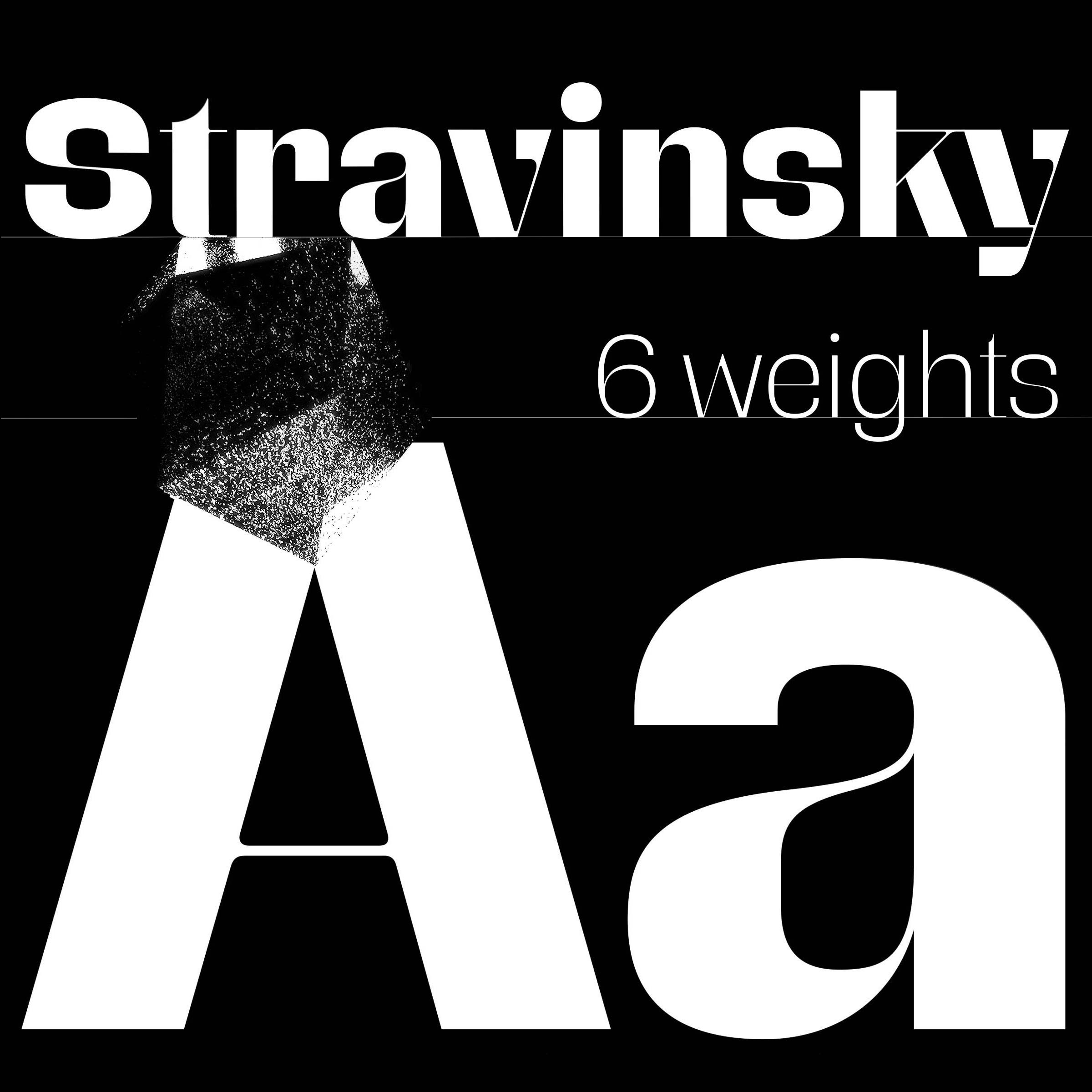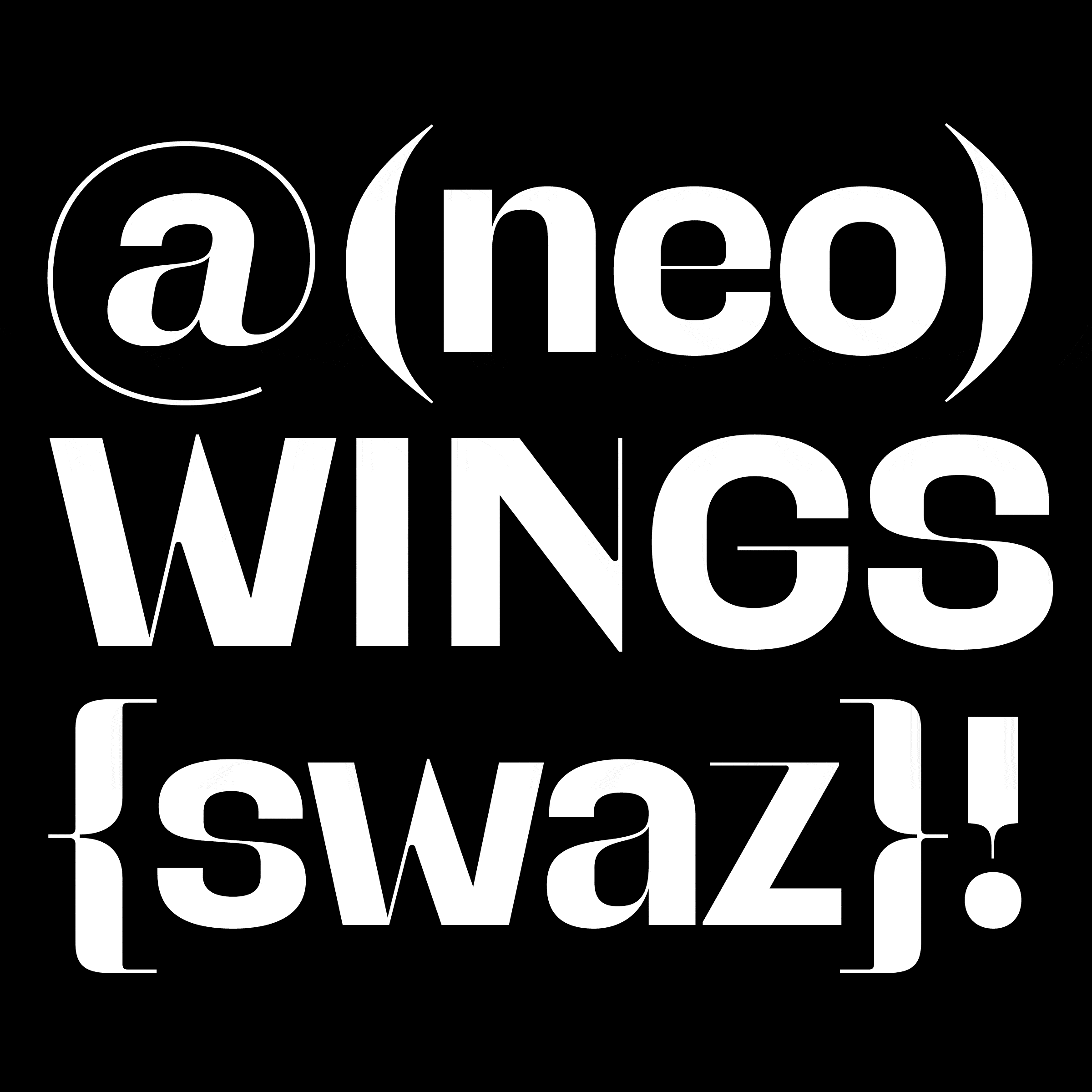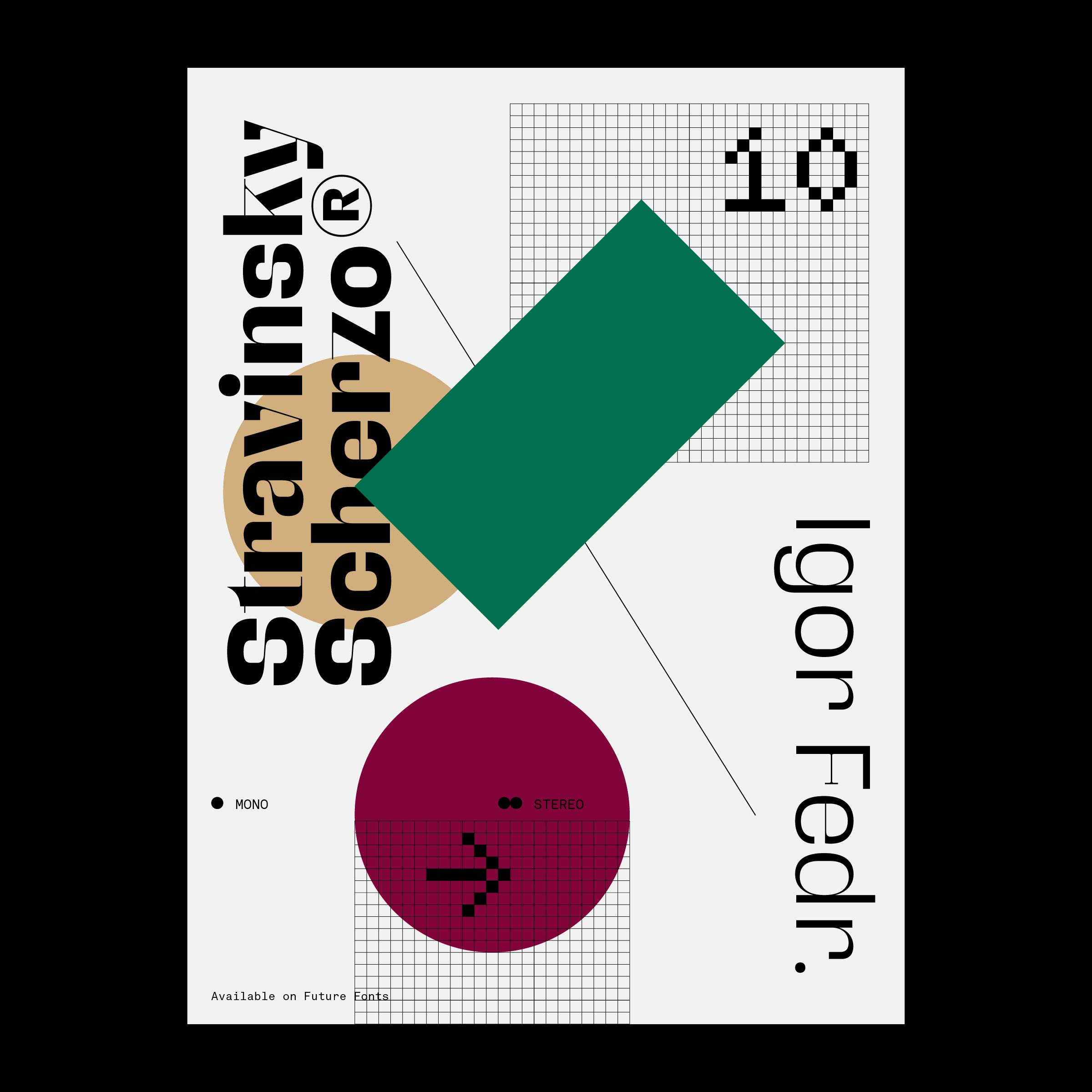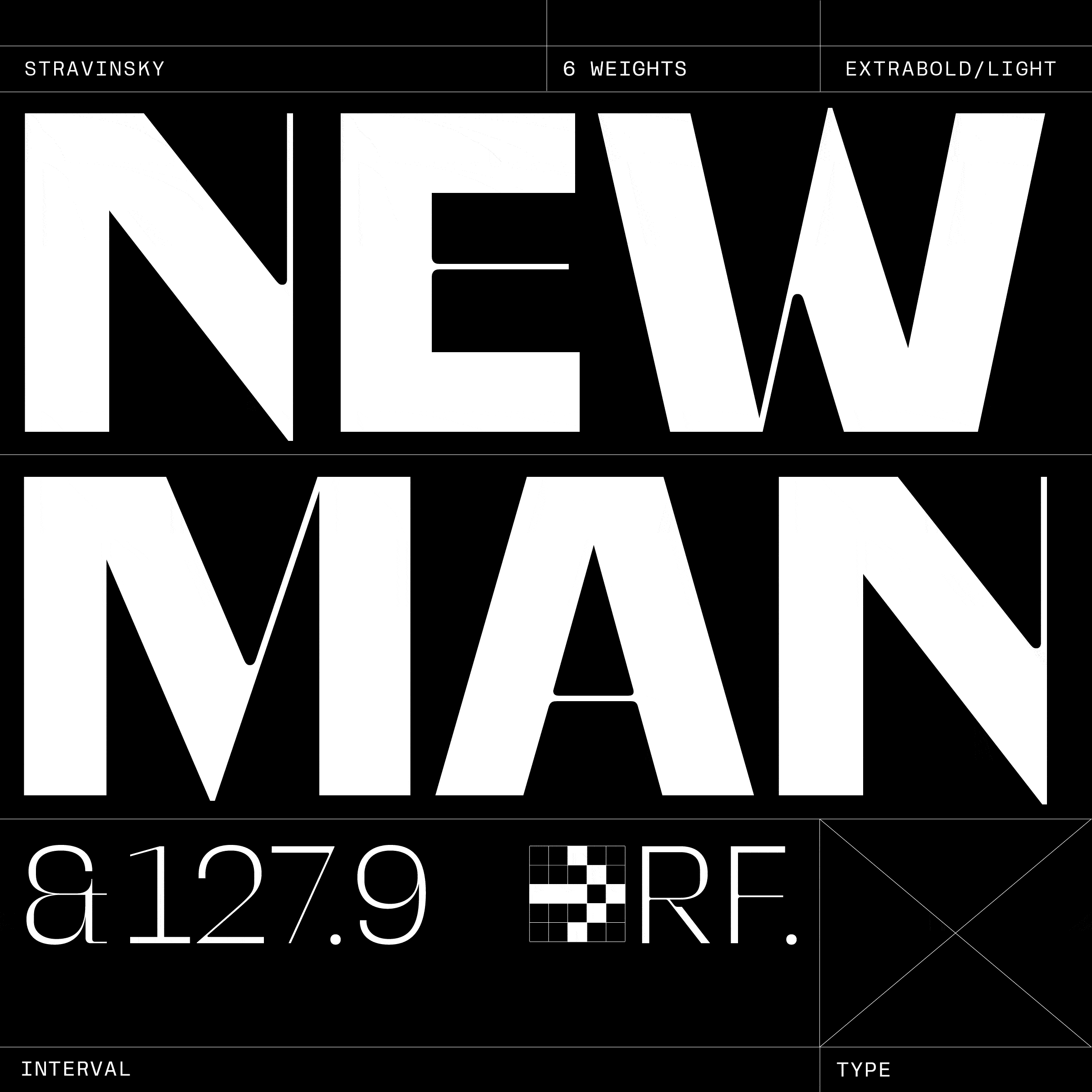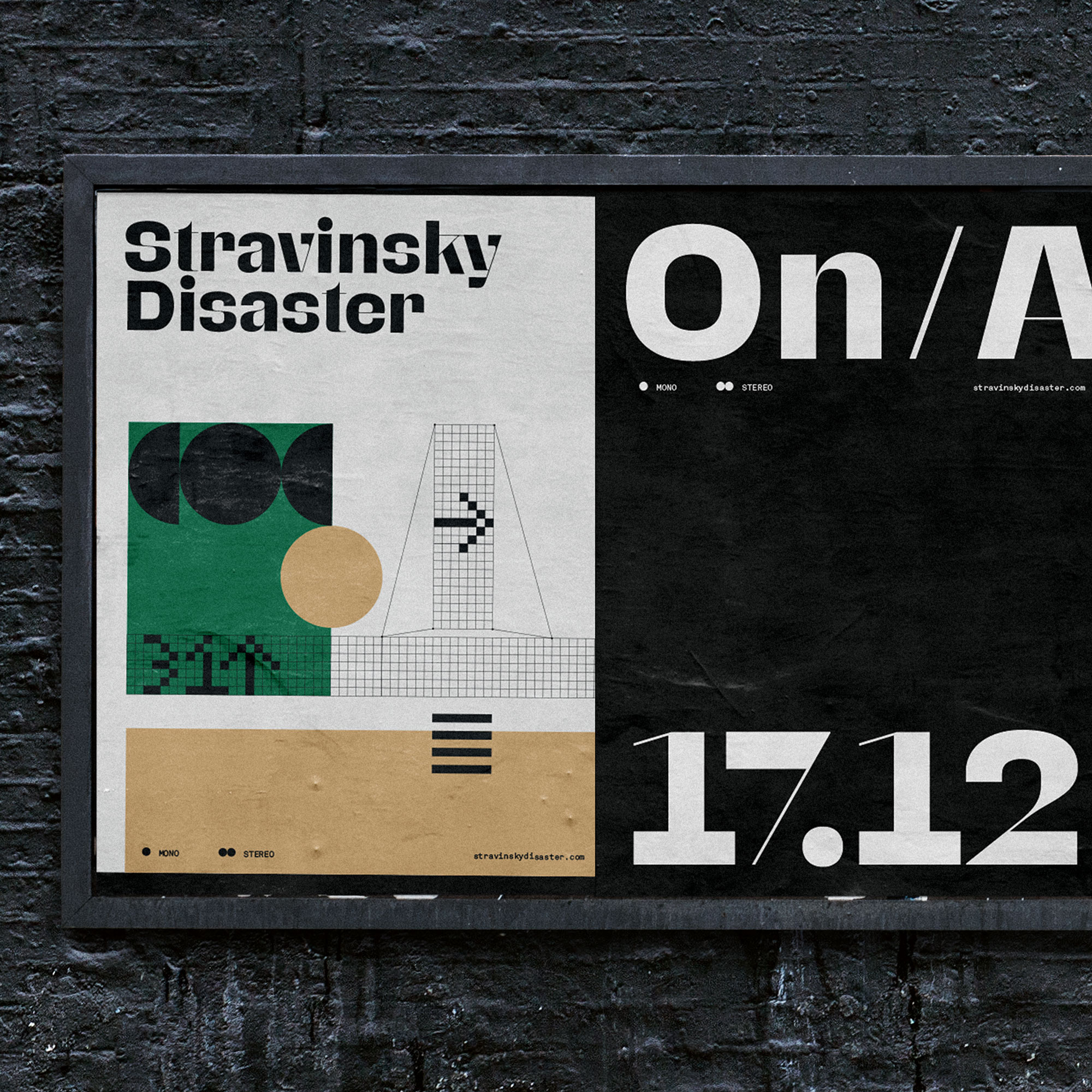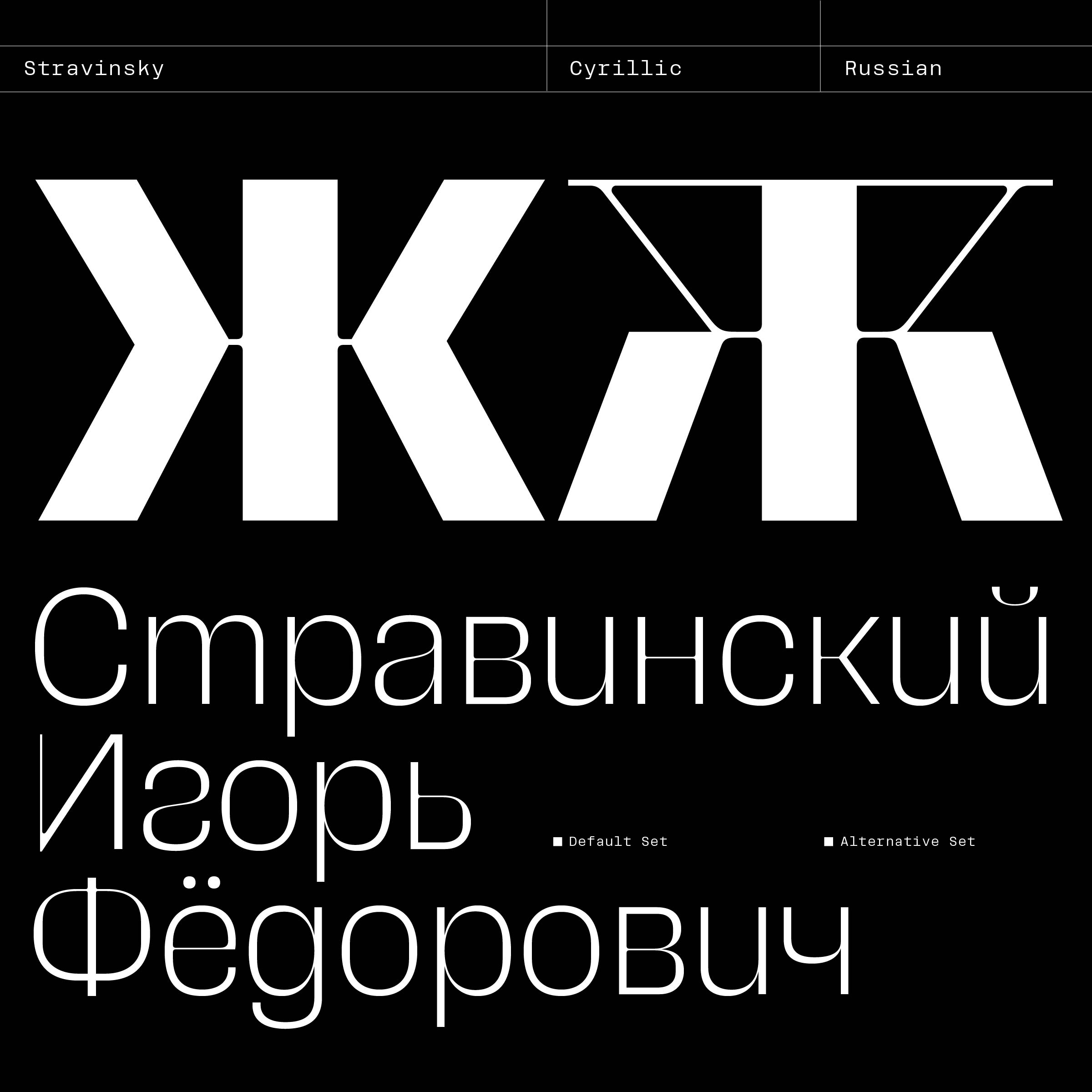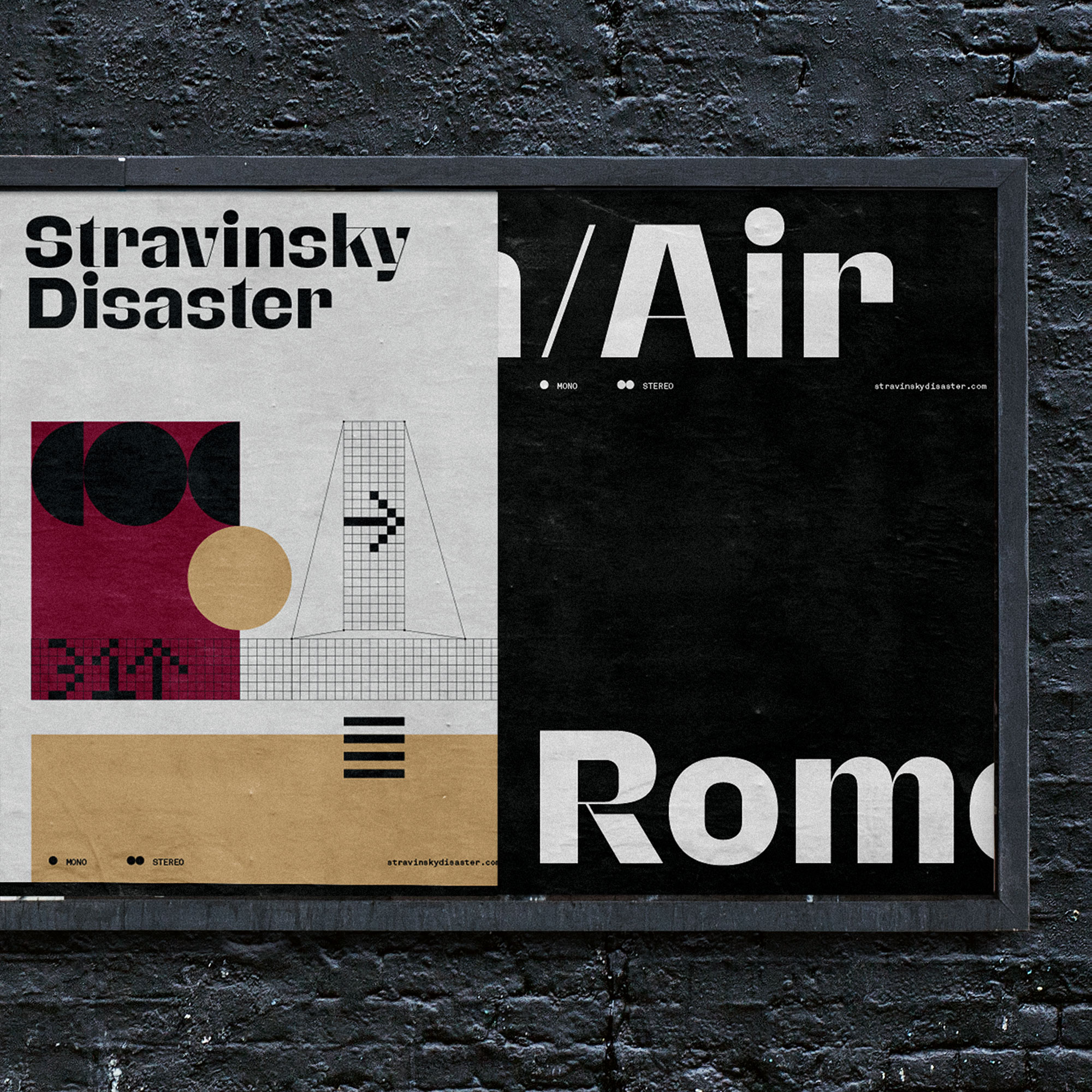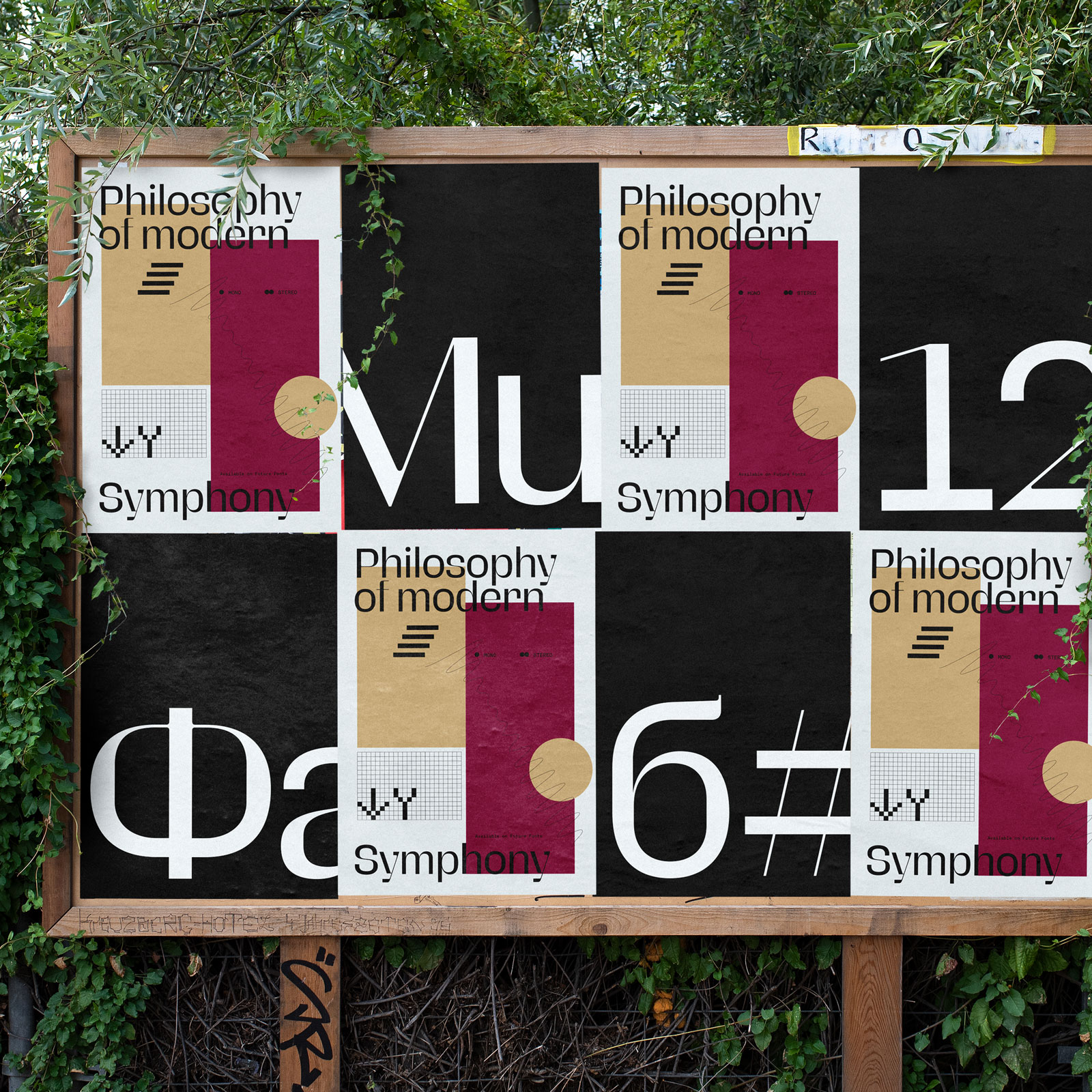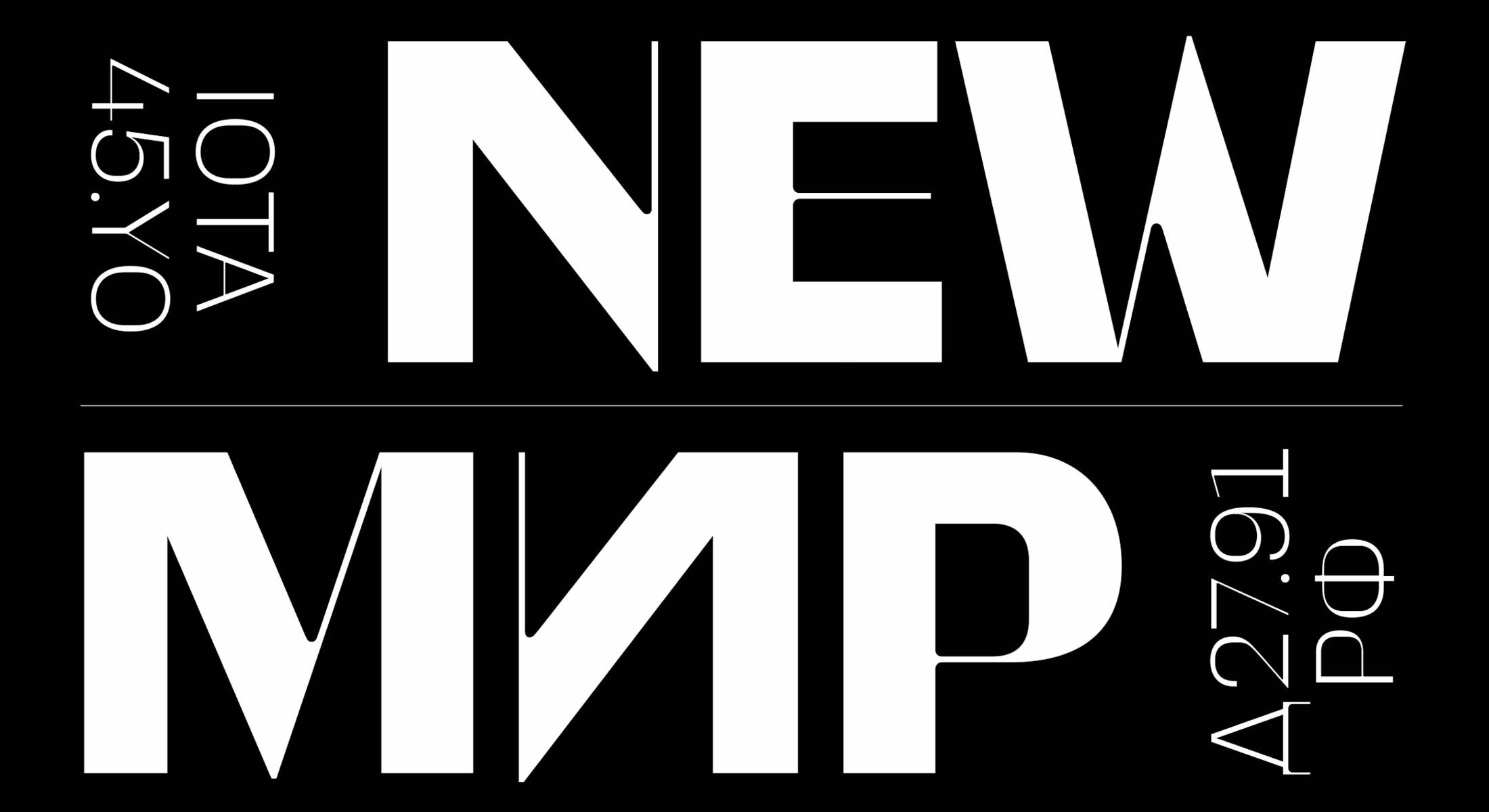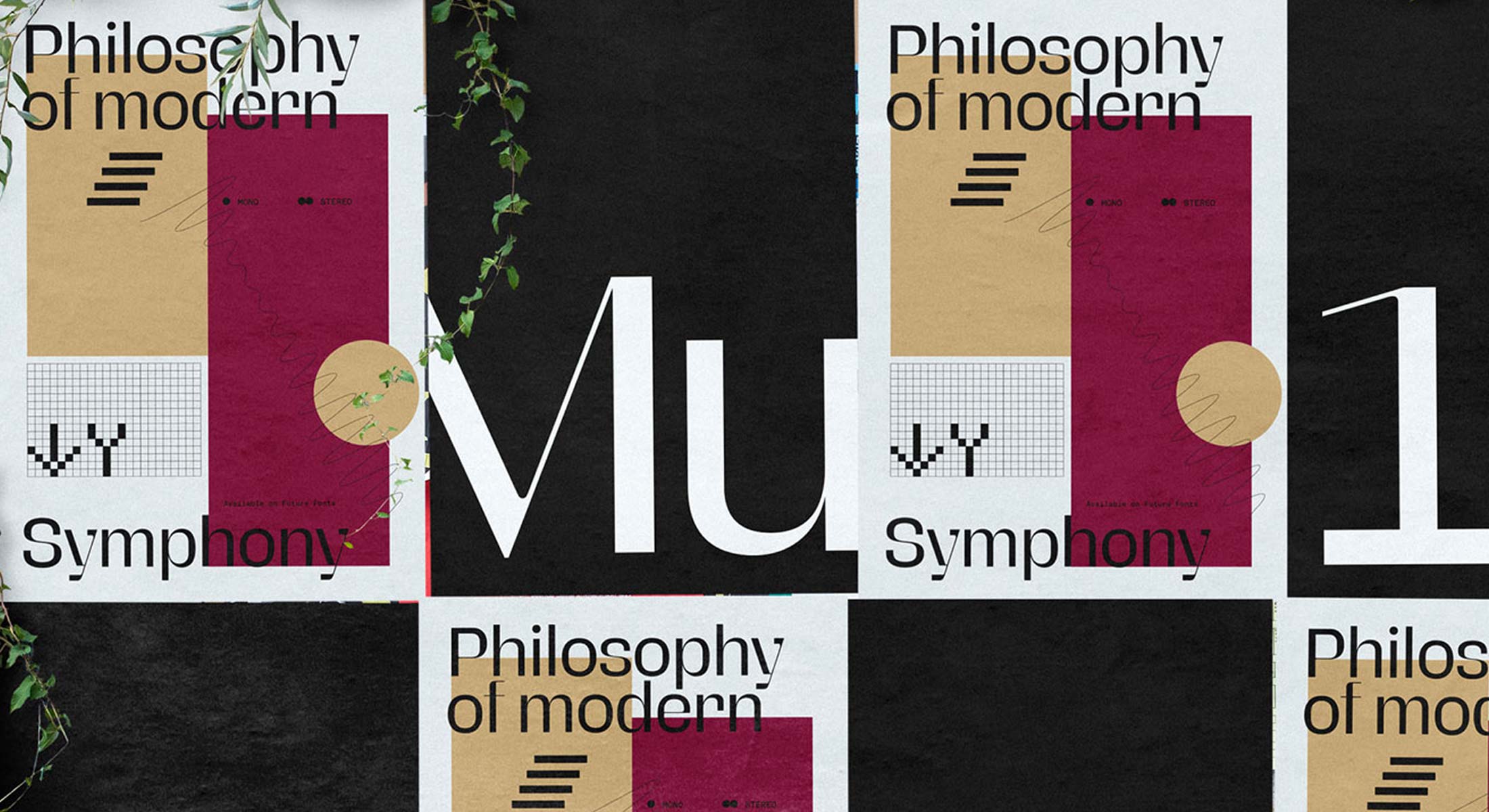
Stravinsky, a quick story
Just as Stravinsky himself had to carefully research rules he broke, this typeface fuses the 18th century Didot vertical contrast and squarish counters with the contemporary sans-serif Grotesk form. It is a slightly chaotic, experimental typeface relying on a hidden order which puts all the characters in its right place. This modern display typeface is suitable for highlighting, teasing, and saying things upfront. Depending on pairing, Stravinsky either plays out as a traditional typeface or a risky fresh new thing.